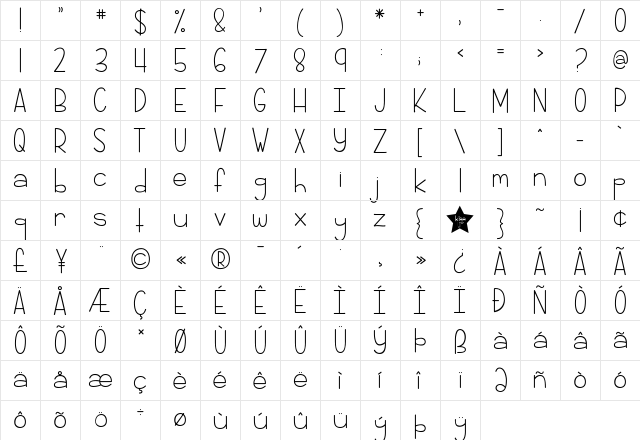
KG Rise UP Regular
| Foundry | Kimberly Geswein |
| Designer | Kimberly Geswein |
Design Context for KG Rise UP Typeface
KG Rise UP offers clean, dependable letterforms without strong stylistic allegiance, making it a practical choice for designers who need flexibility.